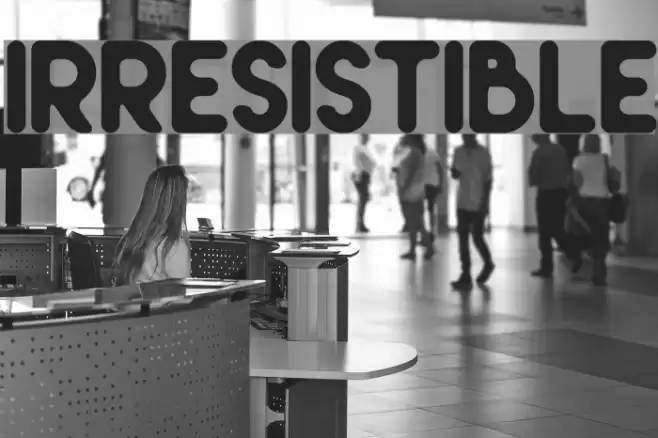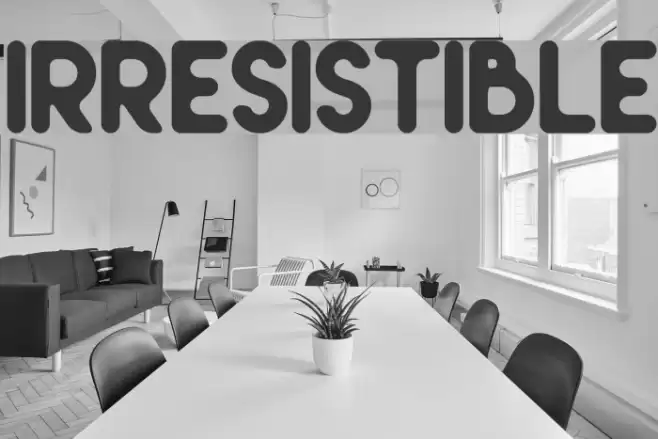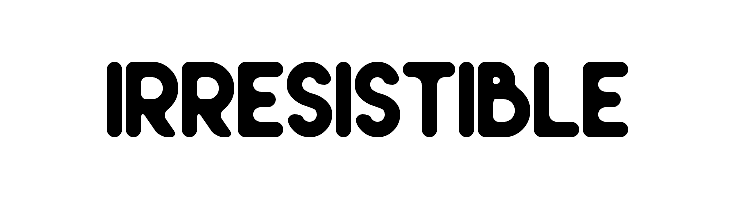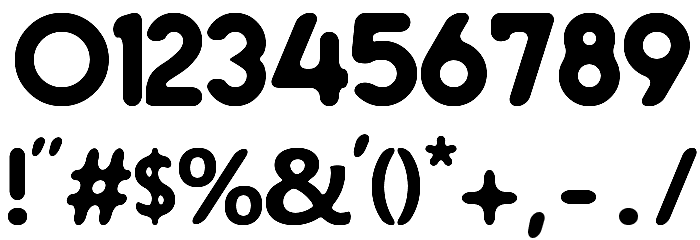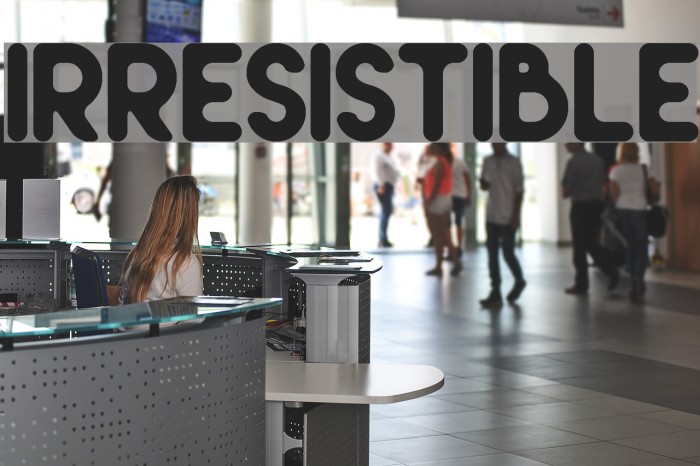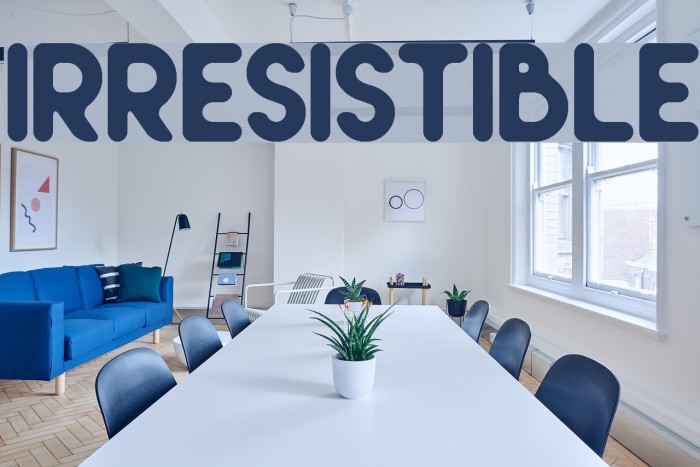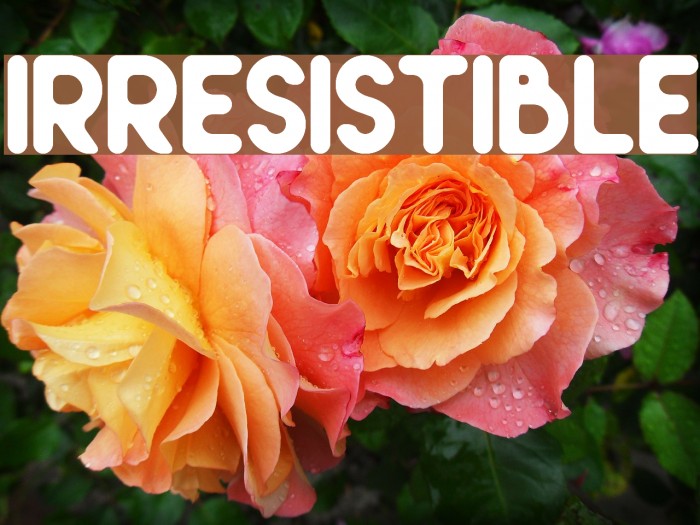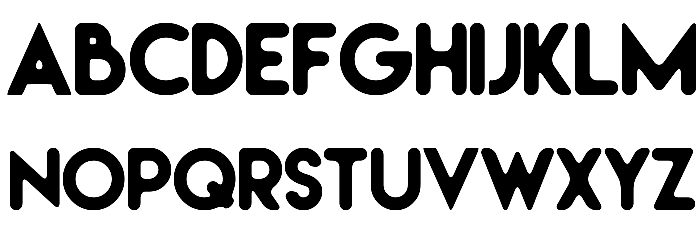
Irresistible
This font features a bold and playful design with rounded edges and a thick, uniform stroke. The characters are highly legible and have a friendly, approachable appearance, making them suitable for a variety of creative projects. The uppercase and lowercase letters maintain a consistent style, with a slight emphasis on curves and smooth lines. The numbers and special characters are equally bold, ensuring they stand out in any context. This font's design is both modern and versatile, ideal for capturing attention while maintaining readability.
A bold, playful font with rounded edges and a modern style.
- Proposed Projects: Ideal for children's books, playful branding, posters, and social media graphics.
- Use Case: Headlines, Logos, Posters